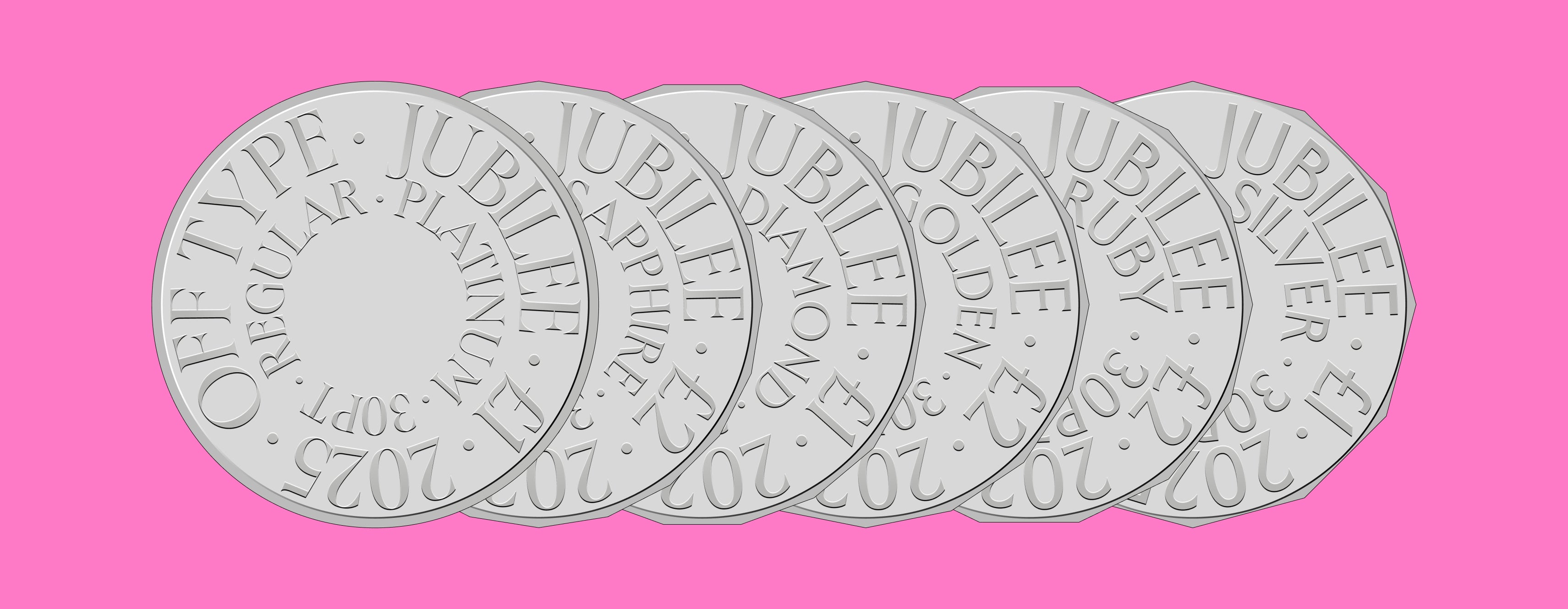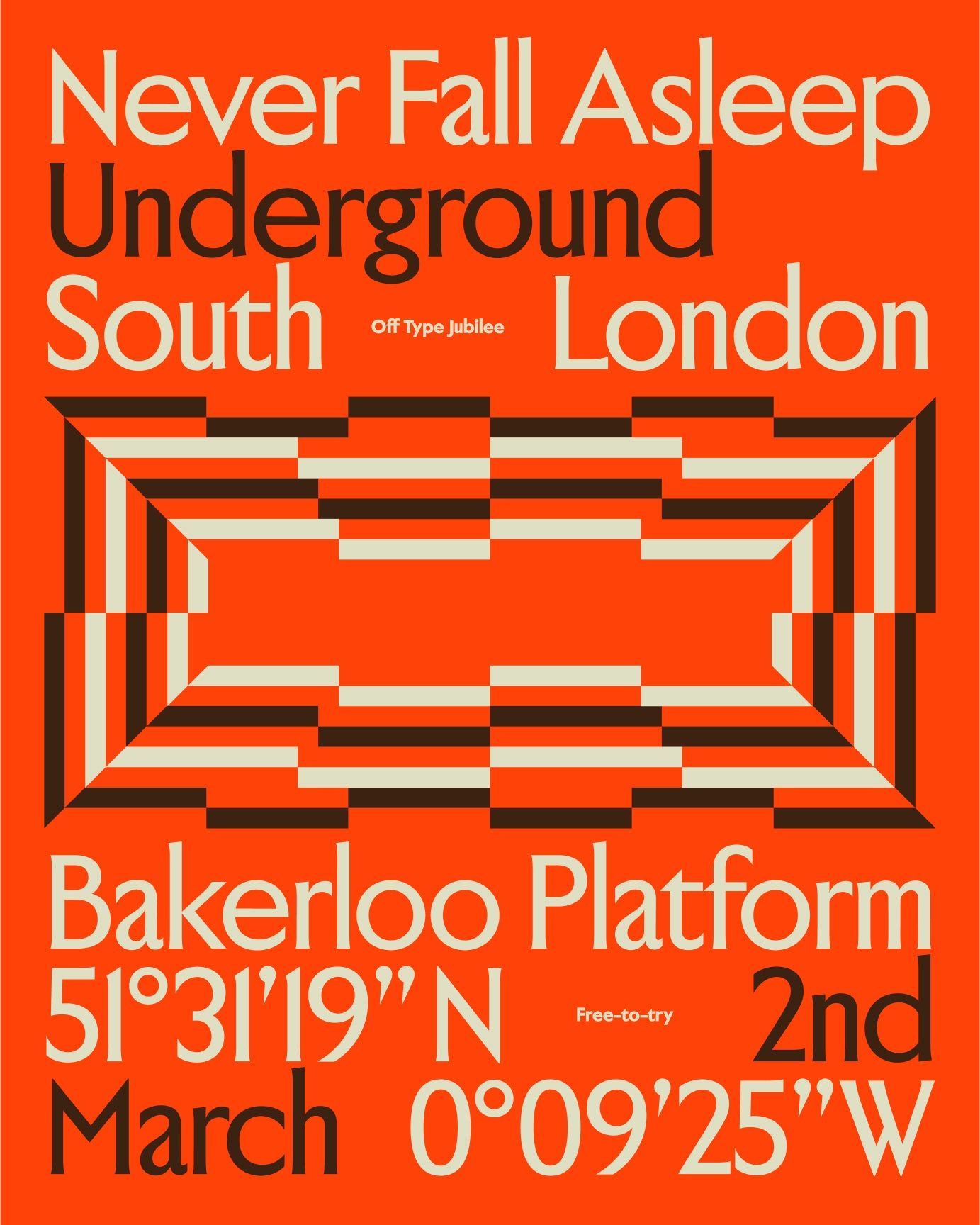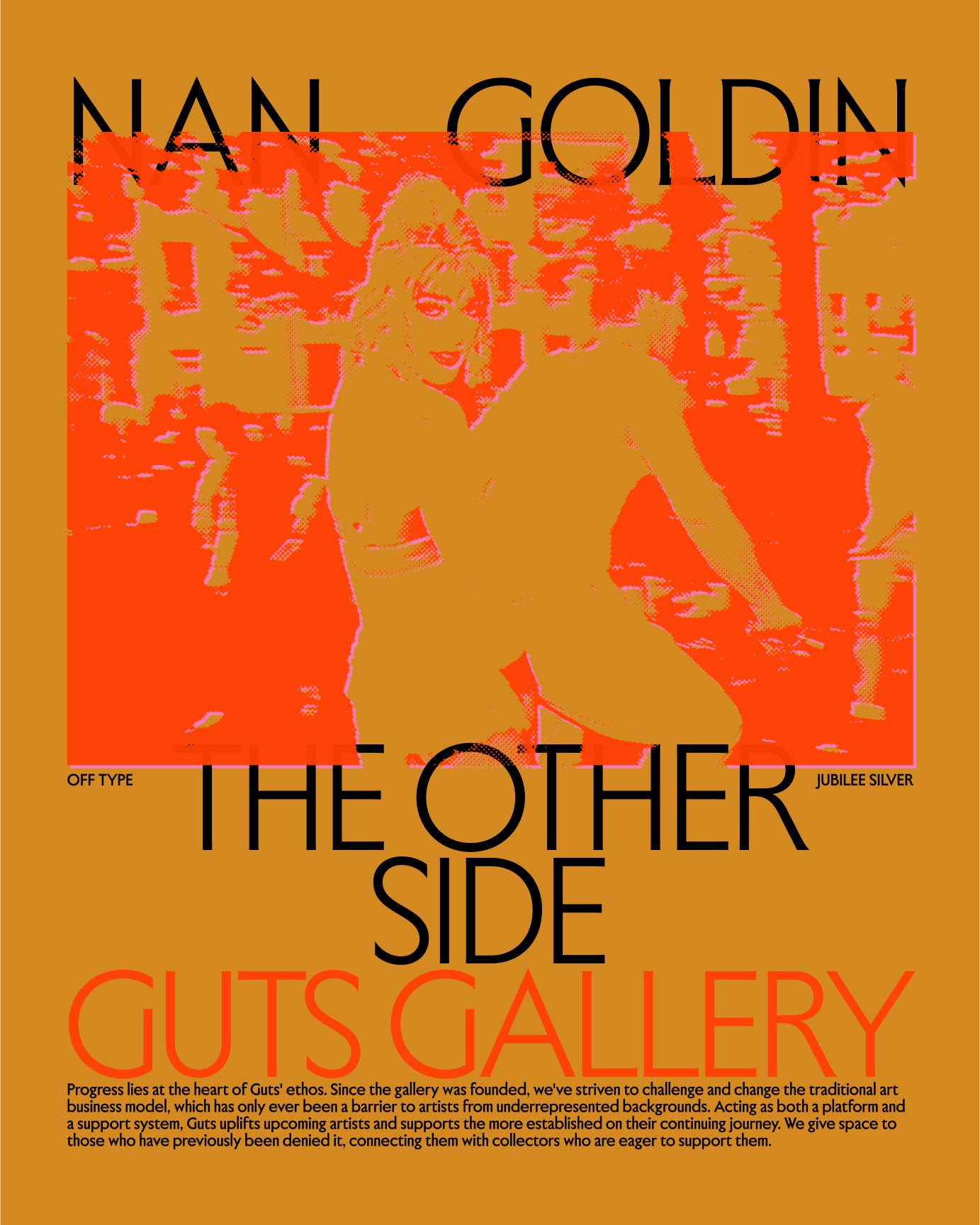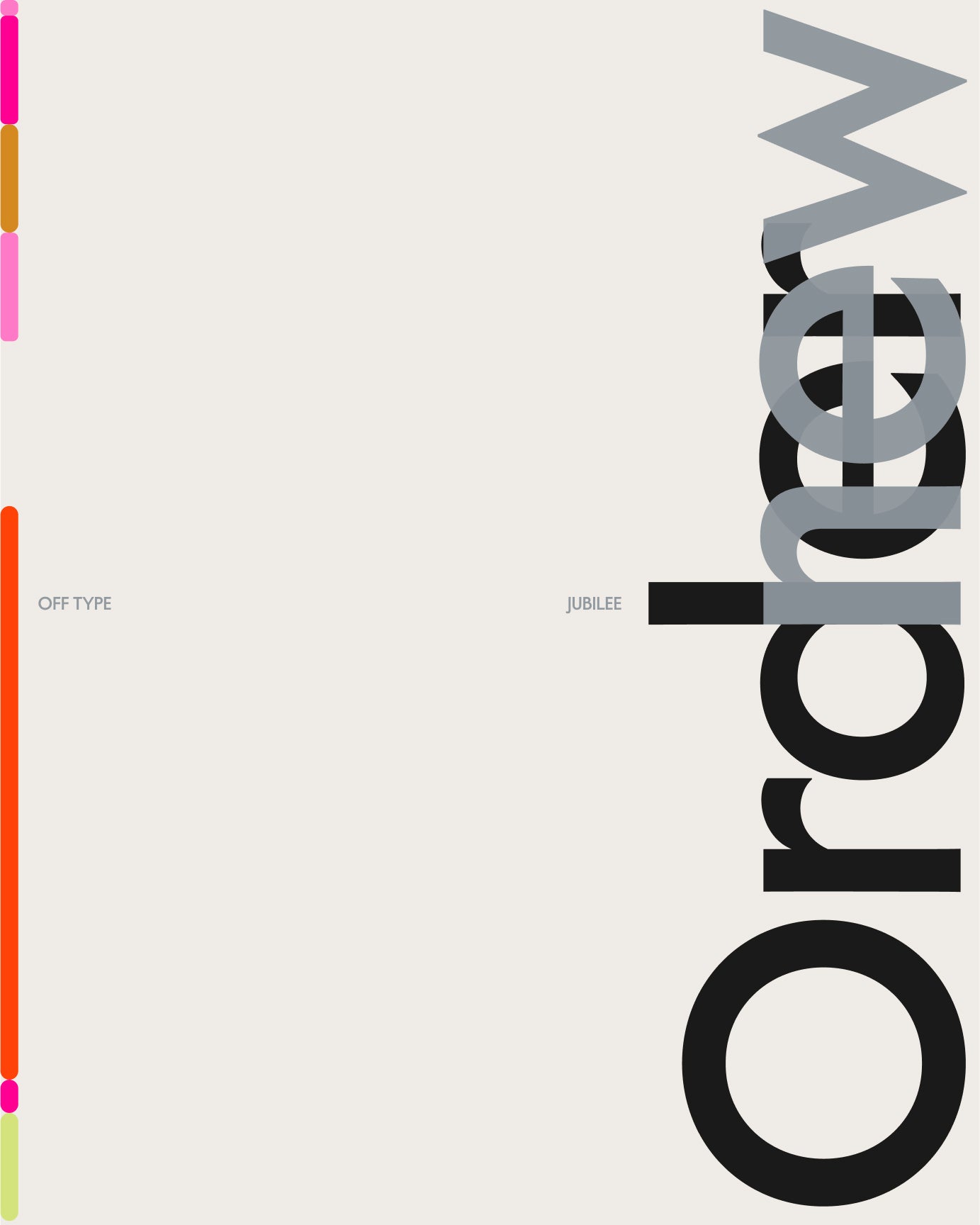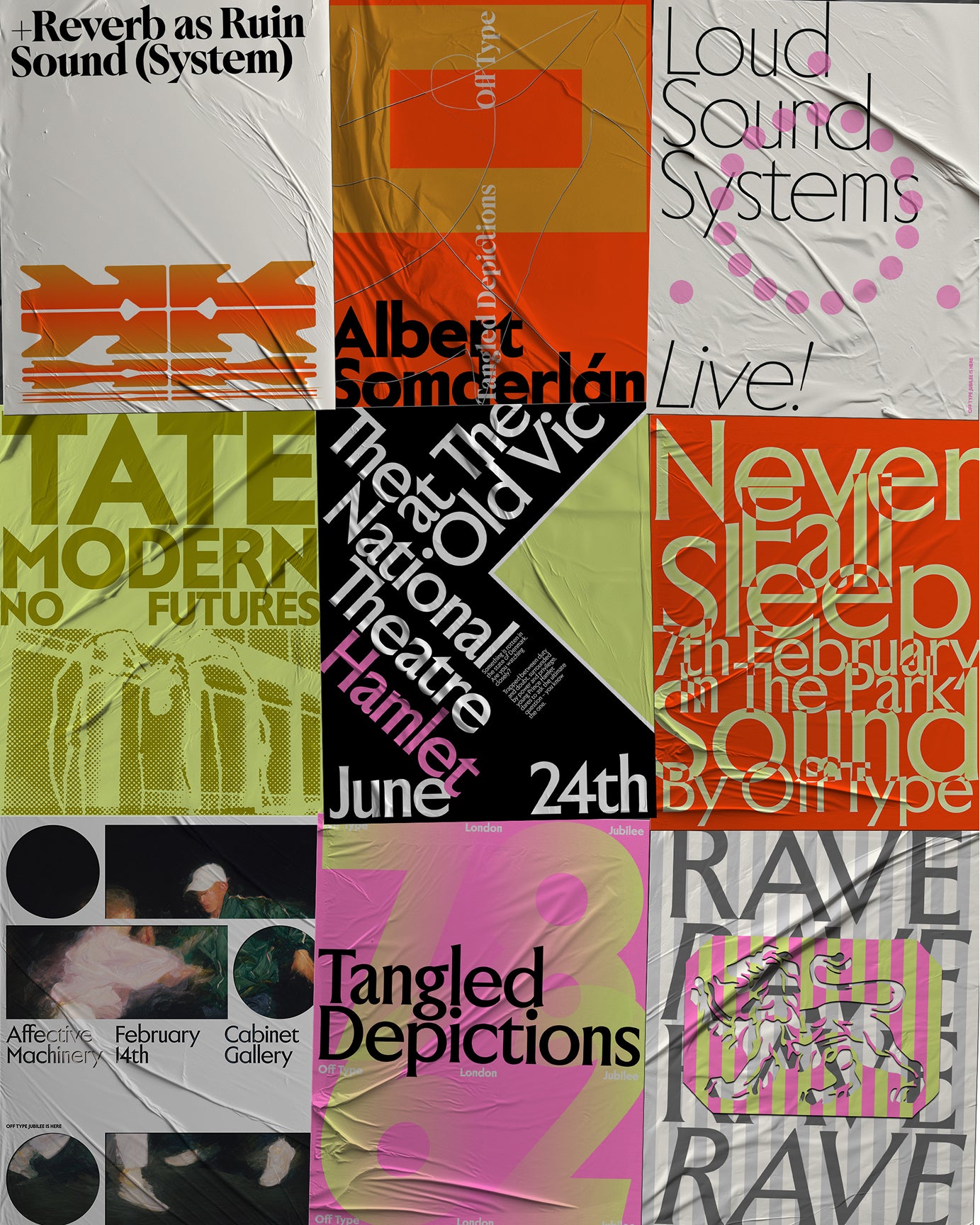
Transforming the legacies and visual codes of British institutions, Jubilee is a bold reimagining of tradition.
Transforming the legacies and visual codes of British institutions, Jubilee is a bold reimagining of tradition, fusing the regal pomp of the Windsor Royal Family with the ghost of Gill Sans to forge something defiantly modern.
Now expanded with a full range of weights and italics, Jubilee stretches from Silver to Platinum across “serifness” and optical sizes, echoing each Jubilee of Queen Elizabeth II’s historic reign. With both Sans and Serif and everything in-between, it moves effortlessly between roles: a refined display face and a surprisingly versatile workhorse. Its deliberately uneven, hand-crafted proportions give it a distinctly human feel, far from the clinical precision of its genre peers.
The personality is further deepened by an intricate glyph set featuring royal icons, crests, and gem-like punctuation, making Jubilee not just a typeface, but a crown jewel in any designer’s toolkit.